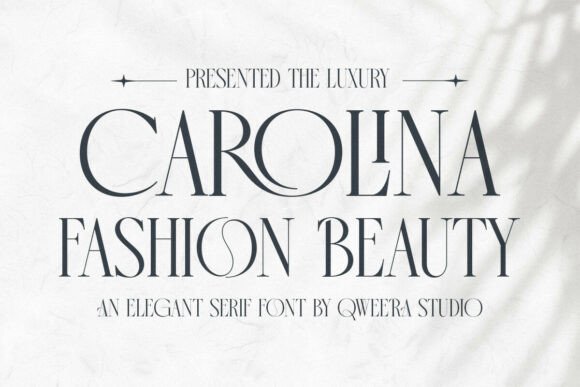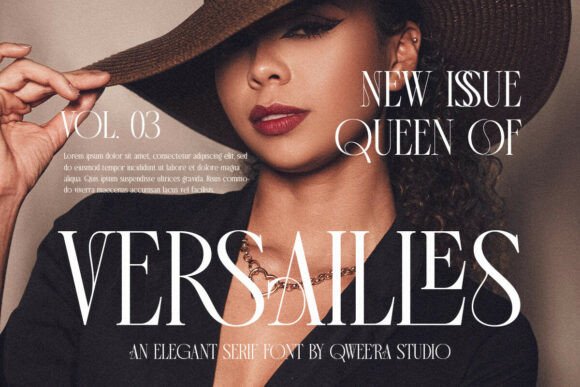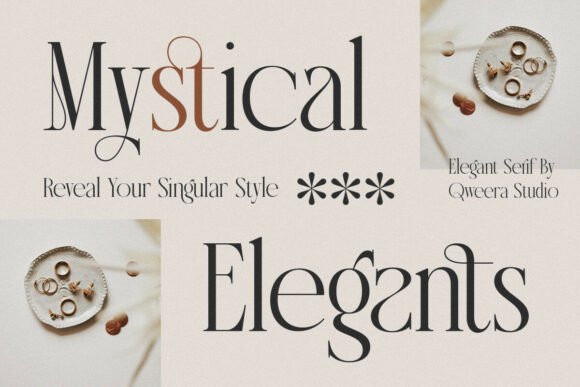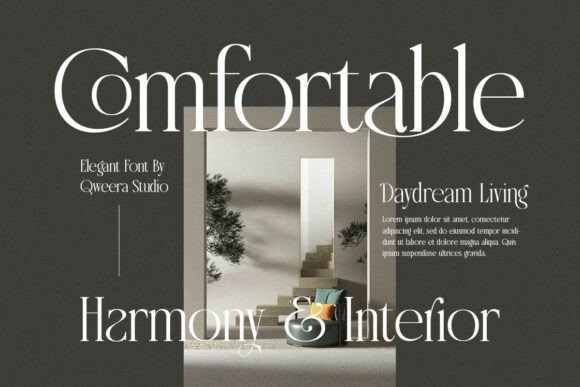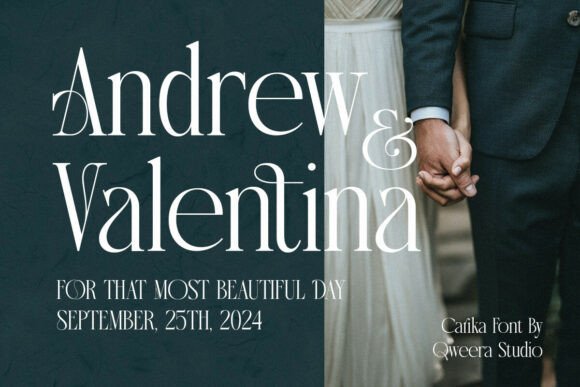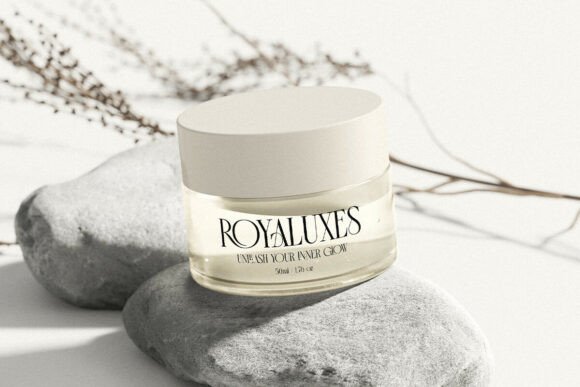
Unleash Elegance with the Perfect Font
Have you ever been stuck on a design project, struggling to find the perfect font that captures the essence of your vision? You’ve poured your heart and soul into the layout, the color palette, and the graphics, but something’s missing – a touch of luxury that elevates your design to new heights. That’s where the Carika Font comes in, a sophisticated serif font designed to add a dash of elegance to any project.
With its classic charm and modern twist, the Carika Font is the perfect tool for designers looking to create stunning visual identities, captivating editorial pieces, or simply add a touch of sophistication to their designs. Whether you’re working on a branding project, a magazine layout, or a website design, this font is sure to impress. Its unique alternates and ligatures make it a valuable asset for any designer looking to take their work to the next level.
Carika Font Key Features
- Font Family: Carika comes in two font families: Regular and Bold.
- Size: Carika font has 256 glyphs, covering a wide range of languages including Latin, Cyrillic, and Greek.
- Resolution: Designed for use at any resolution, making it suitable for both print and digital applications.
- Unique Characteristics: Carika features a unique blend of geometric and organic shapes, creating a distinctive and modern aesthetic.
- Font Pairing: Carika is designed to pair well with other sans-serif fonts, making it a versatile choice for various design projects.
Carika Font Review
As a designer, I’ve had the chance to work with various fonts, and my experience with Carika Font has been quite interesting.
- Unique Style: Carika Font’s unique blend of modern and traditional elements makes it a great choice for designers looking to add some personality to their projects.
- Highly Legible: Despite its unique style, Carika Font is highly legible, making it suitable for both body text and headlines.
- Wide Character Set: The font includes a wide range of characters, including Cyrillic and Greek scripts, making it a great choice for international projects.
- Limited Font Sizes: Carika Font is best suited for medium to large font sizes, as it can become too condensed at smaller sizes.
- No Italic or Bold Variations: The font is only available in a single weight, which can limit its versatility.
Overall, I think Carika Font is a solid choice for designers looking for a unique, high-quality font. While it may have some limitations, its strengths make it a great addition to any design project.
Getting the Most Out of Carika Font
To get the most out of Carika Font, use it for:
- Typography-based designs, such as logos and title cards.
- Handwritten-style text, such as quotes and testimonials.
- Emphasizing key messages or headlines.
Carika Font is commonly used for:
- Branding and logo designs.
- Quotes and inspirational graphics.
Alternatives to Carika Font for Designers
Great Vibes is a modern, elegant script font designed by Laurent Bourdelas. It’s perfect for creating a sophisticated and luxurious feel in branding, packaging, and advertising. Great Vibes is more ornate and flowing compared to Carika Font, making it ideal for use in high-end products or services.
Comparison to Carika Font: Great Vibes is more elaborate and has a more fluid design, whereas Carika Font is more geometric and minimalist. Great Vibes is suitable for use in titles, headings, and short paragraphs, while Carika Font is better suited for body text and large blocks of content.
Pacifico is a beautiful, elegant script font designed by Vic Fieger. It’s perfect for creating a relaxed, beachy vibe in branding, packaging, and advertising. Pacifico is more casual and laid-back compared to Carika Font, making it ideal for use in outdoor and recreational products or services.
Comparison to Carika Font: Pacifico is more casual and has a more organic design, whereas Carika Font is more geometric and minimalist. Pacifico is suitable for use in titles, headings, and short paragraphs, while Carika Font is better suited for body text and large blocks of content.
Lobster is a fun, cursive font designed by Pablo Impallari. It’s perfect for creating a playful and creative feel in branding, packaging, and advertising. Lobster is more whimsical and expressive compared to Carika Font, making it ideal for use in products or services that require a touch of personality.